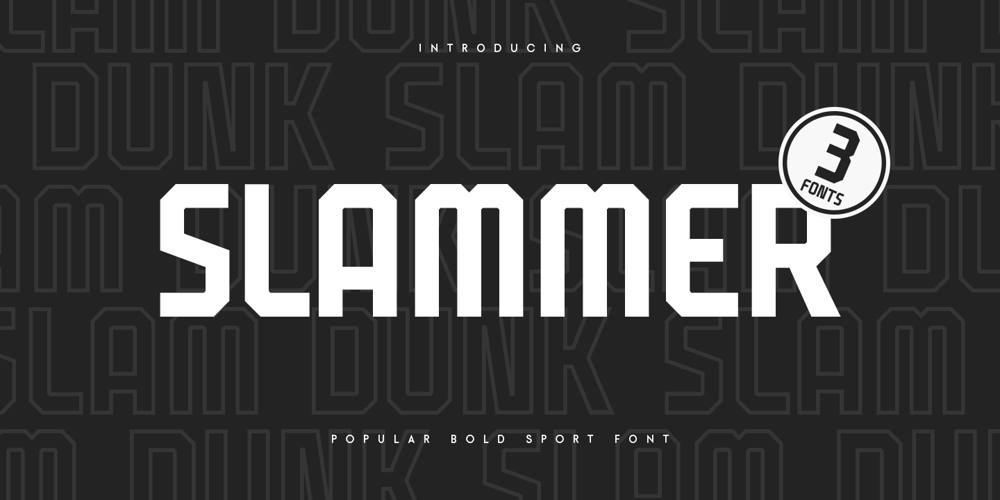
Slammer Font Family was designed by Zamroni Hamzah and published by Sensatype Studio. Slammer contains 3 styles and family package options. Slammer is a Popular Bold Sport Font that created special for Branding, Title and more stand out typography for sport and action. It’s so perfect to add your style and headline overview for sport, technology, actions, and fighting theme. And specially for this font, we crafted for bold action style and modern feels so enjoy to create any project that will show your main idea out.Slammer Popular Bold Sport Font ready with: Creative characters prepared to get best results Preview as a inspirations that you can do with Slammer font Ready with All Uppercase characters Wish you enjoy our font. ๐